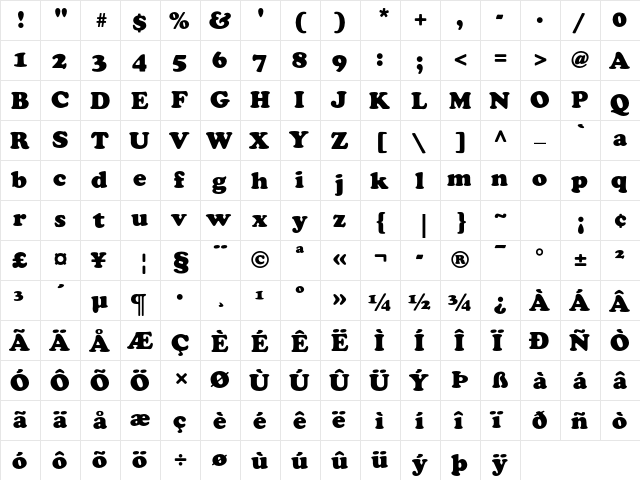
Cooper Std Black
| Designer | Oswald Bruce Cooper |
Cooper Std offers clean, dependable letterforms without strong stylistic allegiance, making it a practical choice for designers who need flexibility.